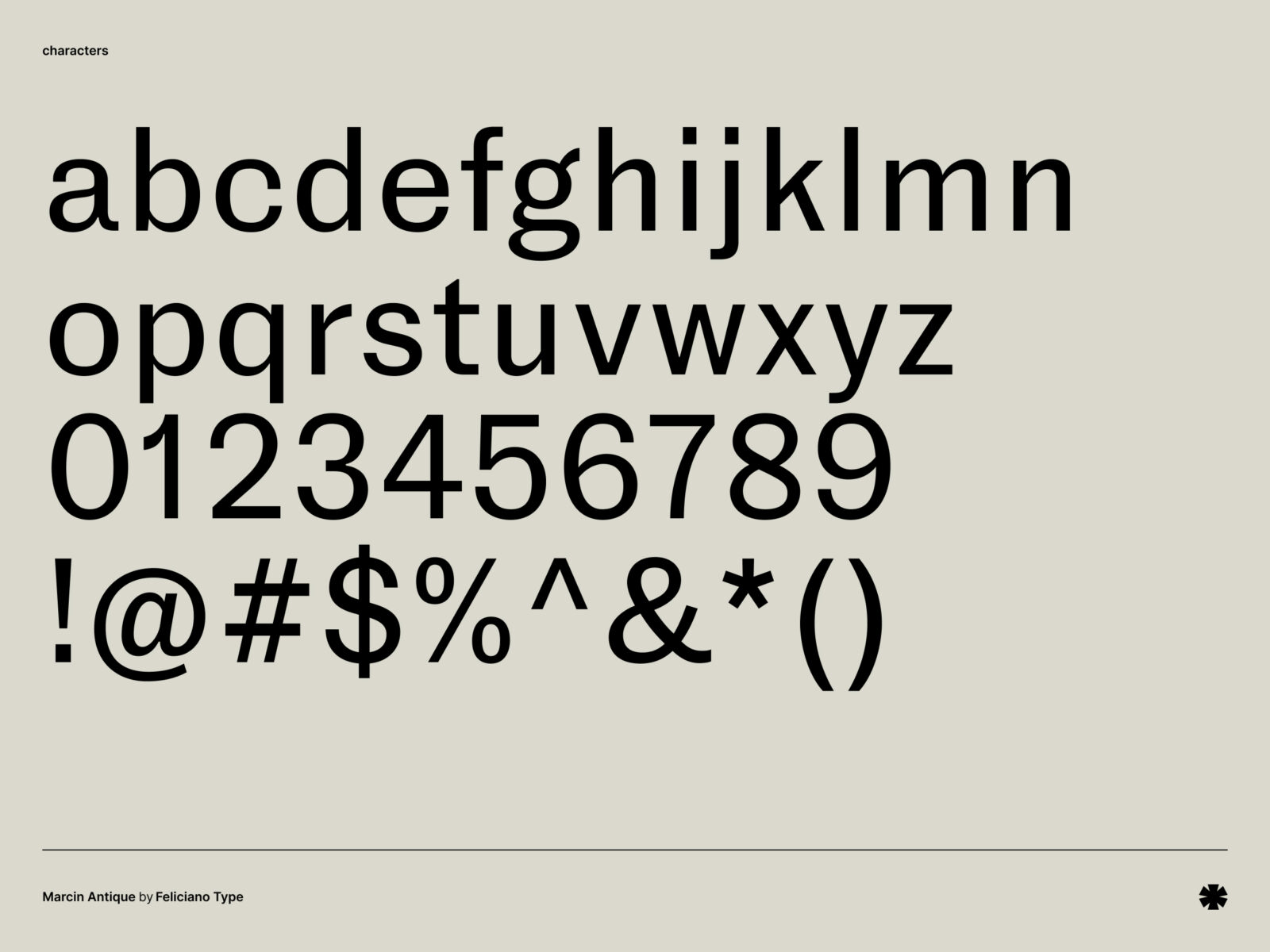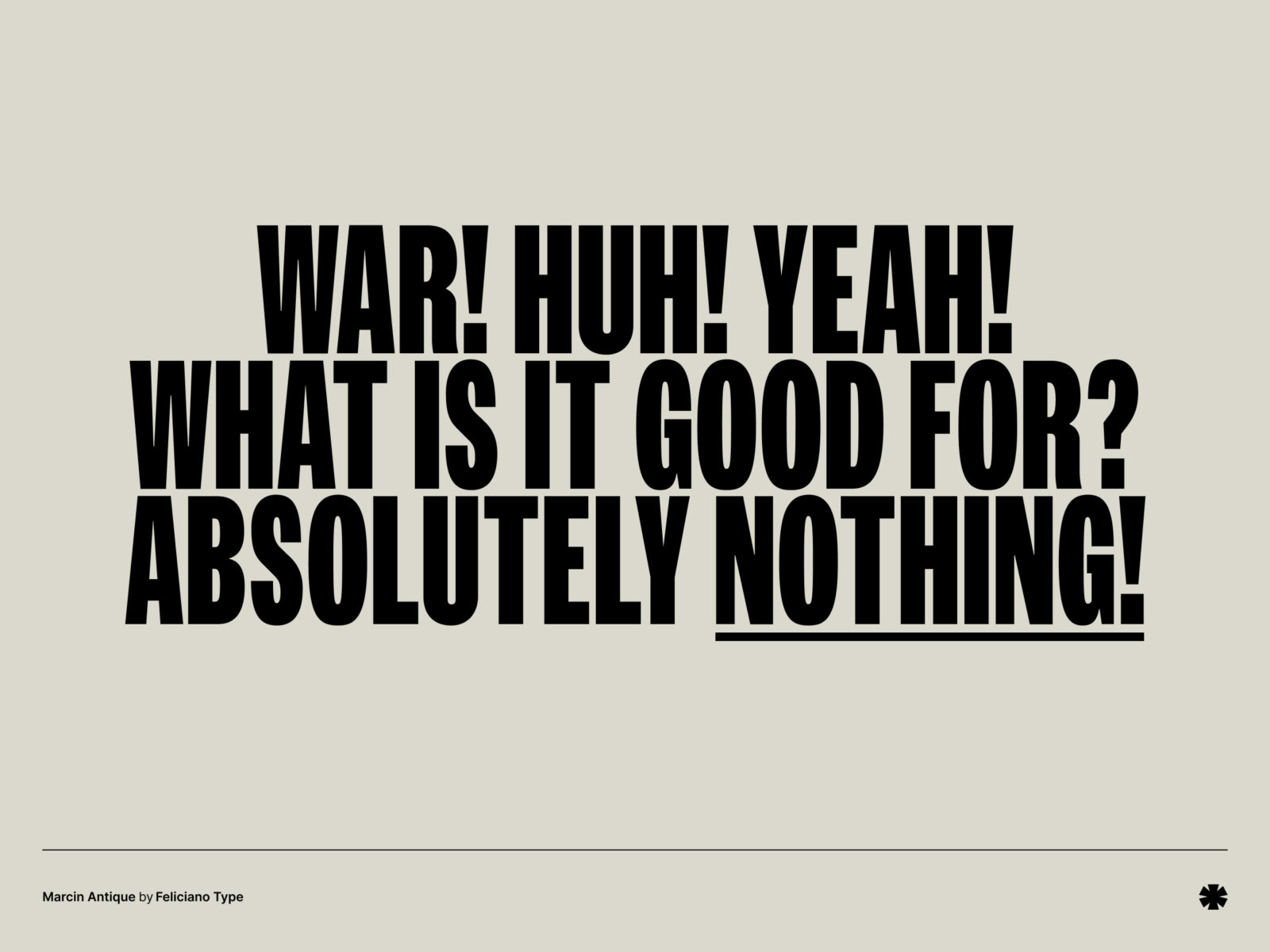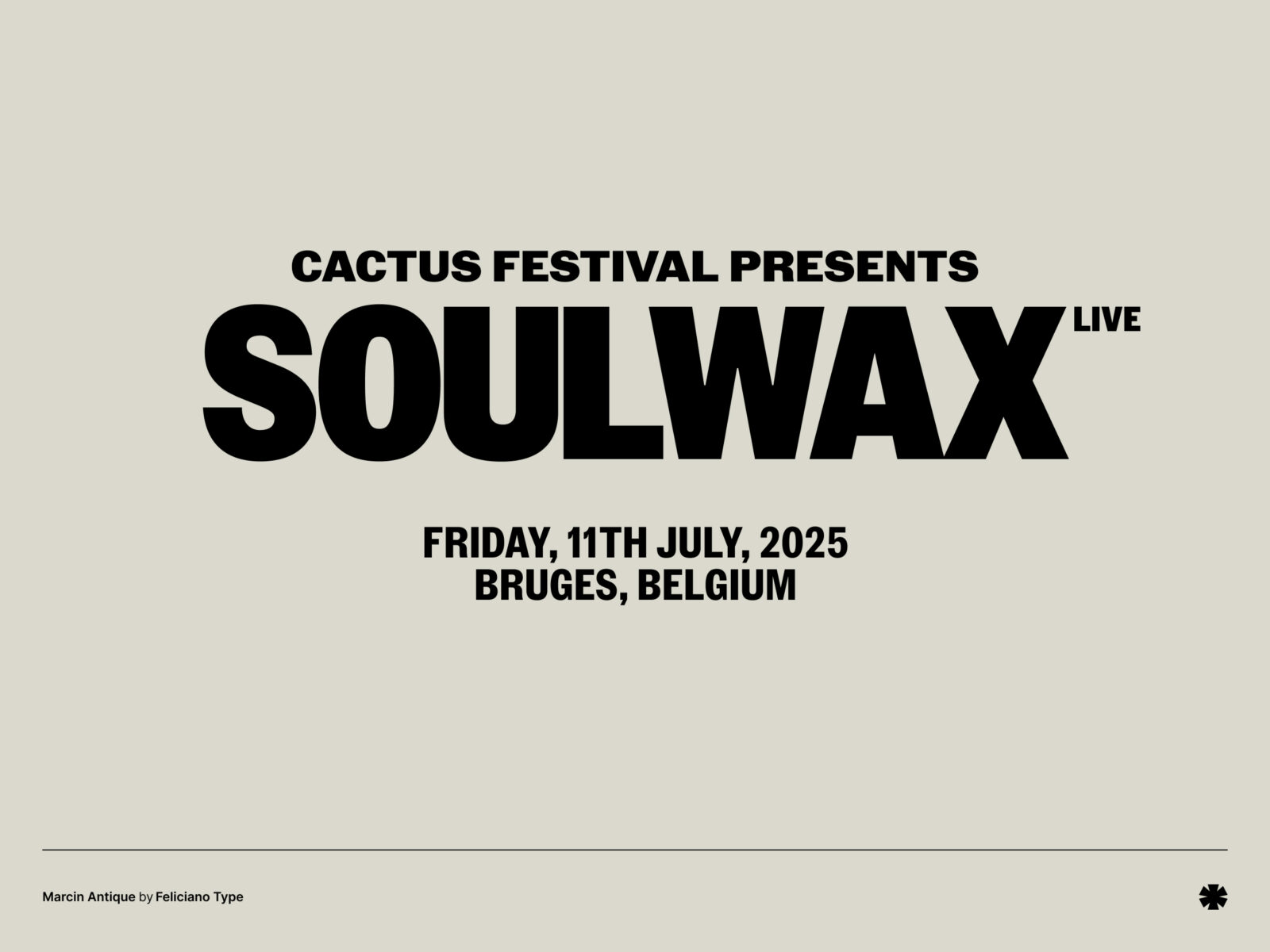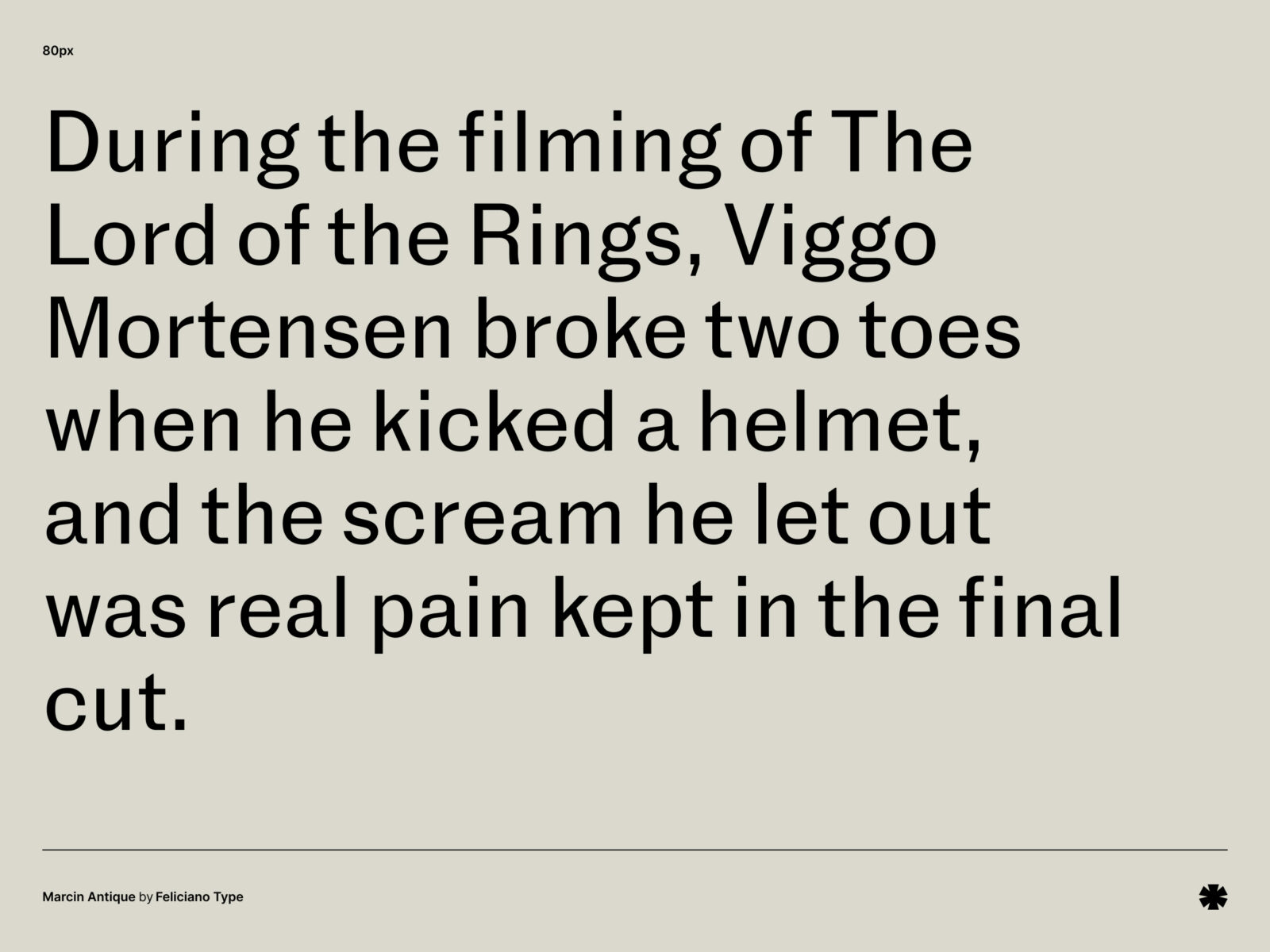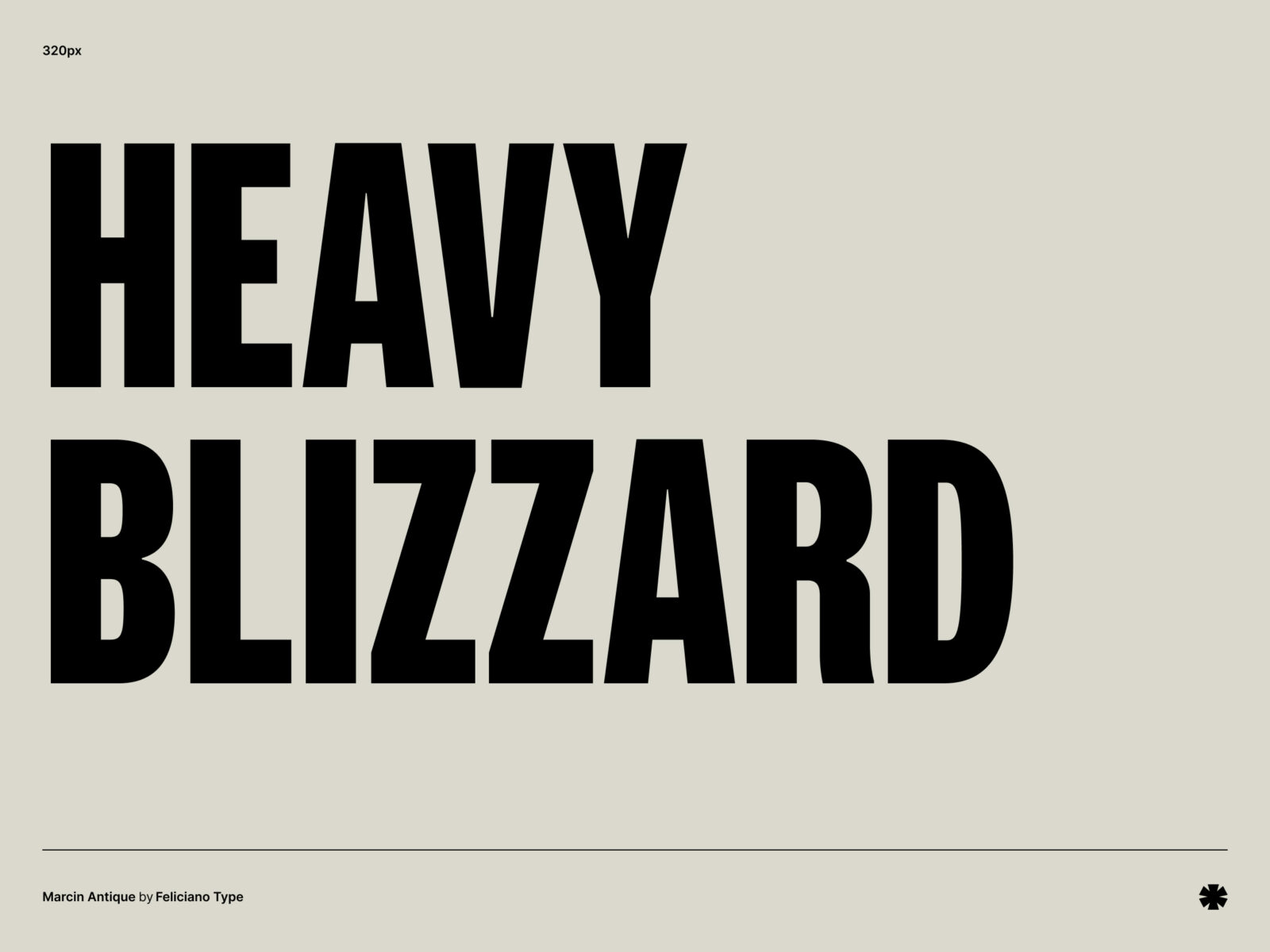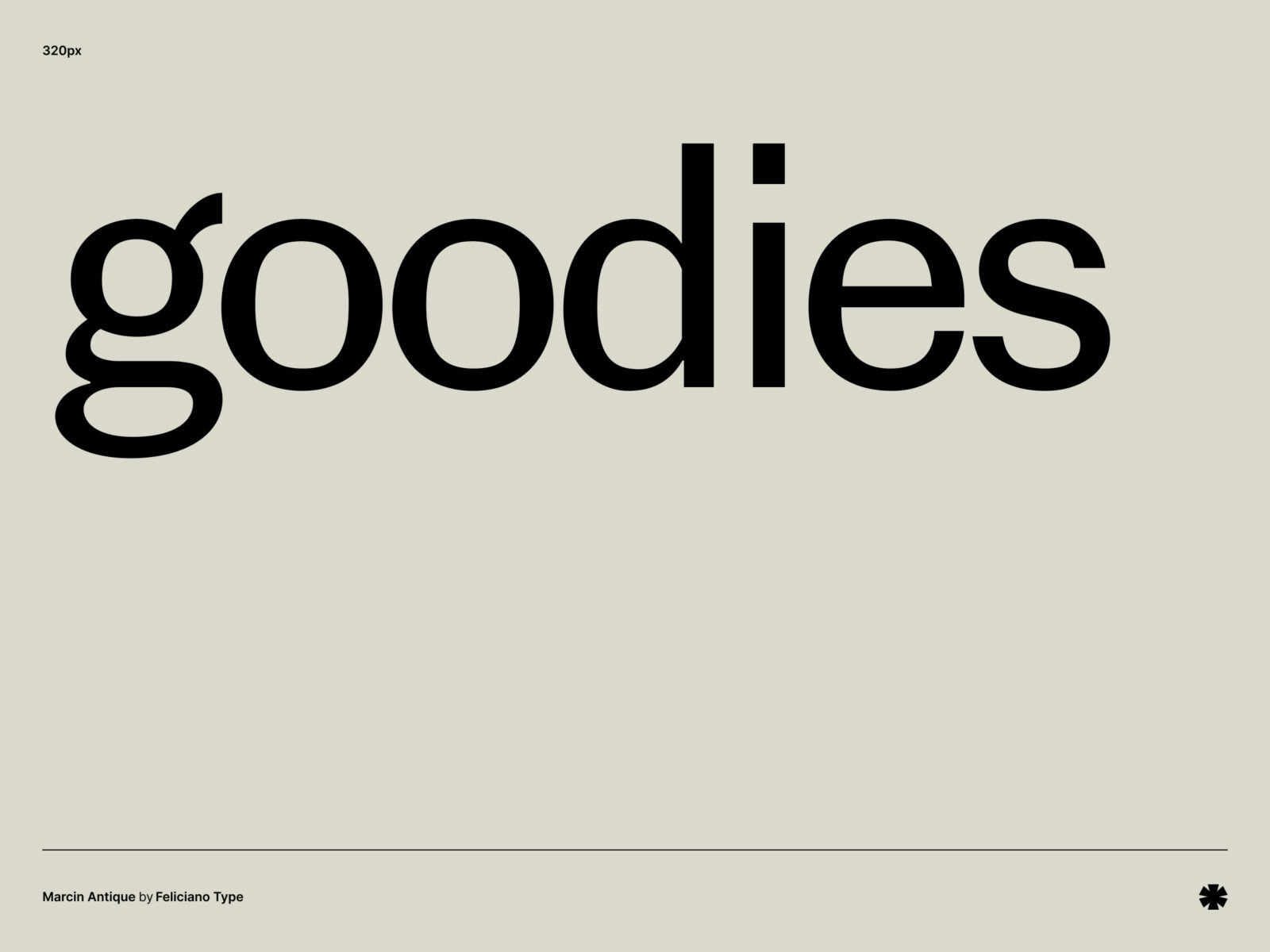
Marcin Antique takes its inspiration from typefaces originally crafted by Fonderie Gustave Mayeur in Paris. It features a lot of weights and widths, which makes it very versatile and a good choice for almost anything.